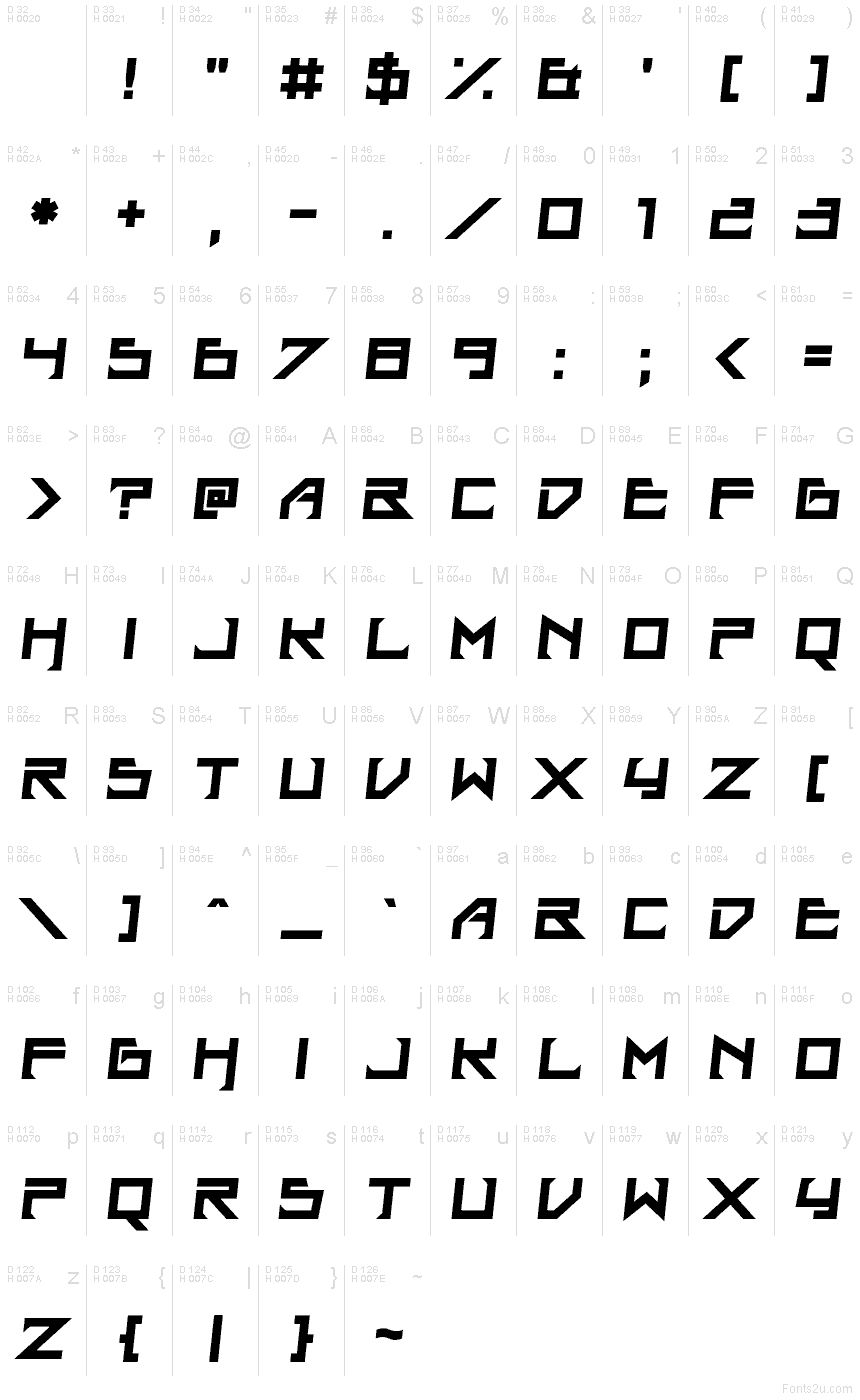
Cynosure
Cynosure font by Checker Ink combines retro-futuristic, modern aesthetics with a tech-inspired look. The free techno display font features bold characters made of geometric shapes, sharp angles, and an expanded width for a remarkable angular design with unmatched consistency.
A typeface like Cynosure works harmoniously with logos, brand names, websites, poster titles, and business cards. Use it for digital projects such as social media posts and magazine layouts or print-based designs like invitations or apparel prints.
Cynosure by Chequered Ink.